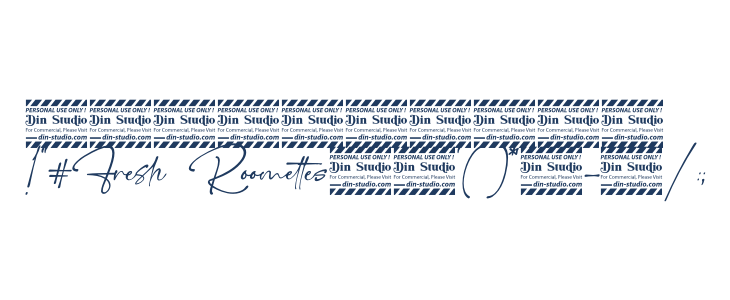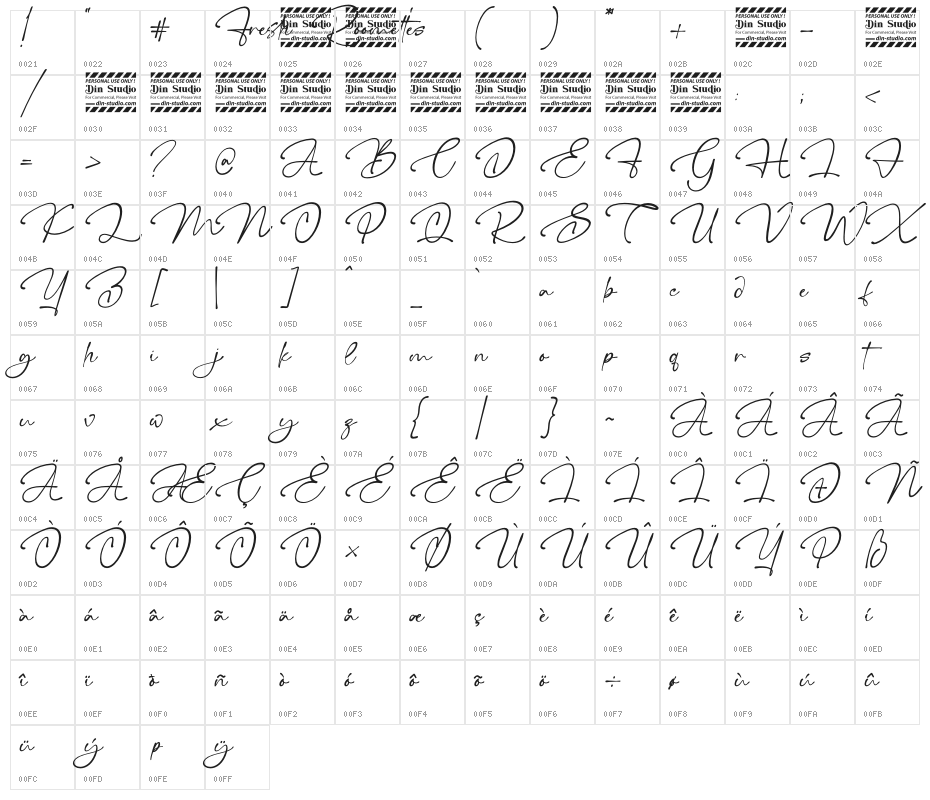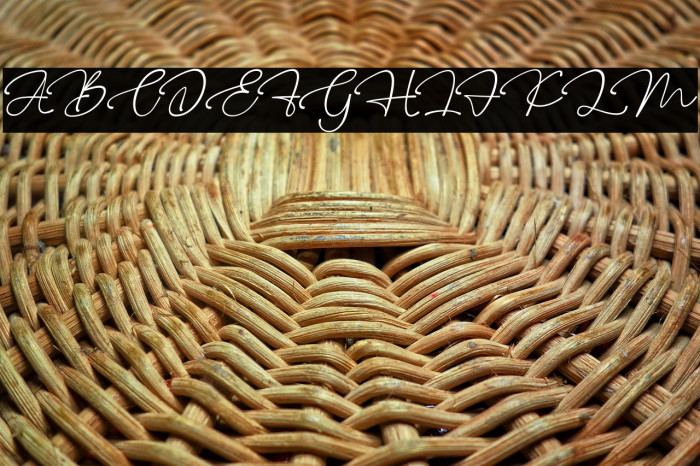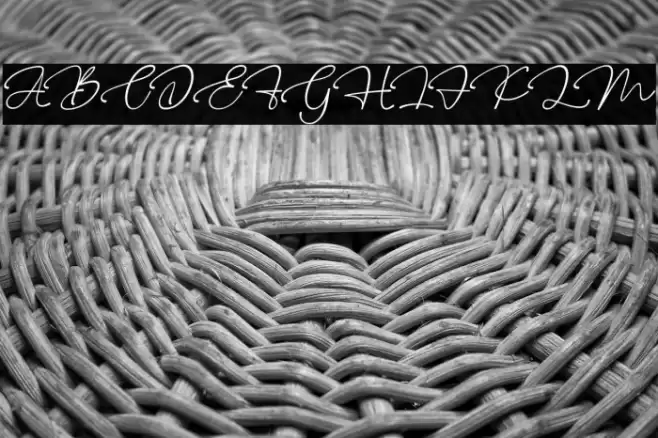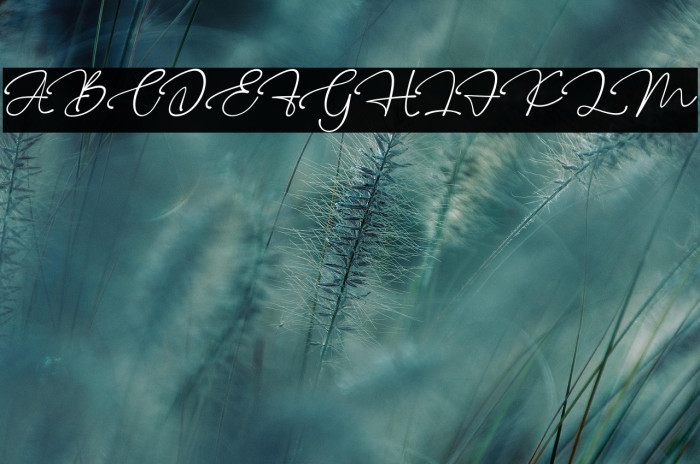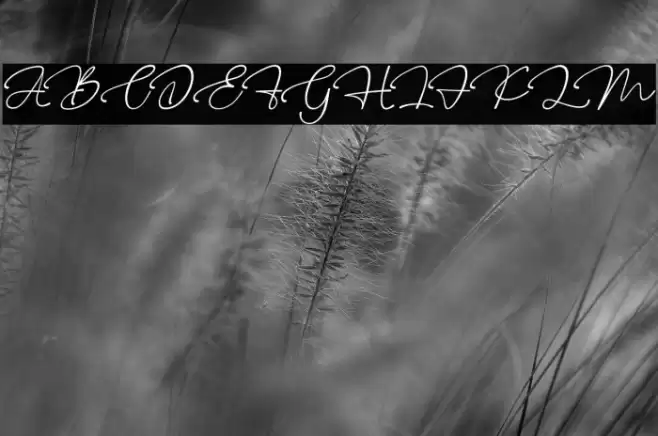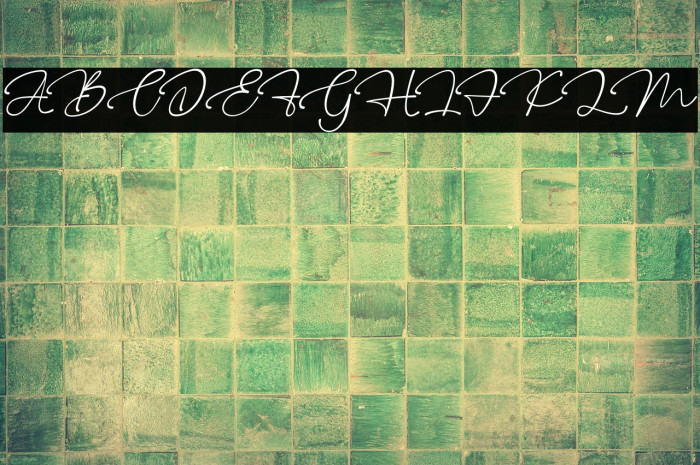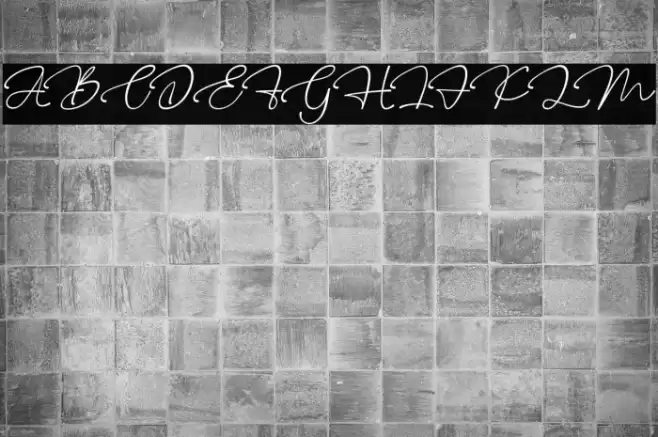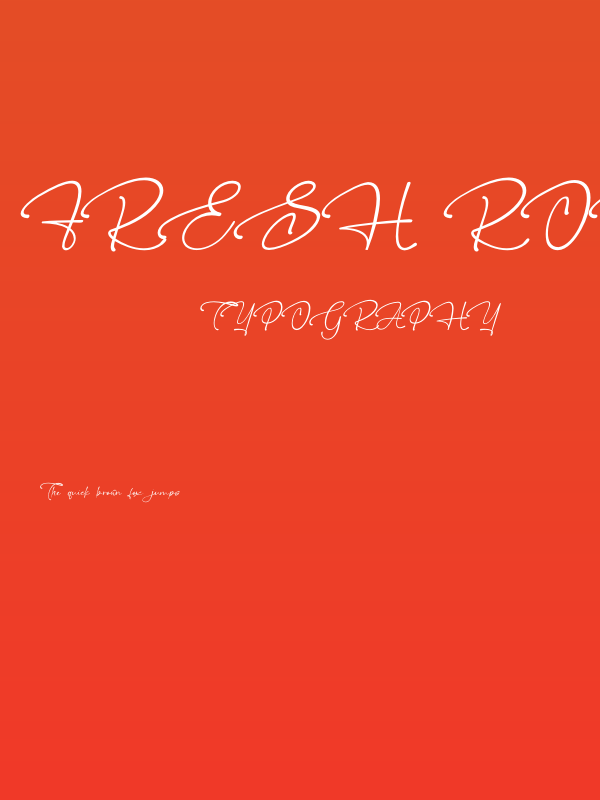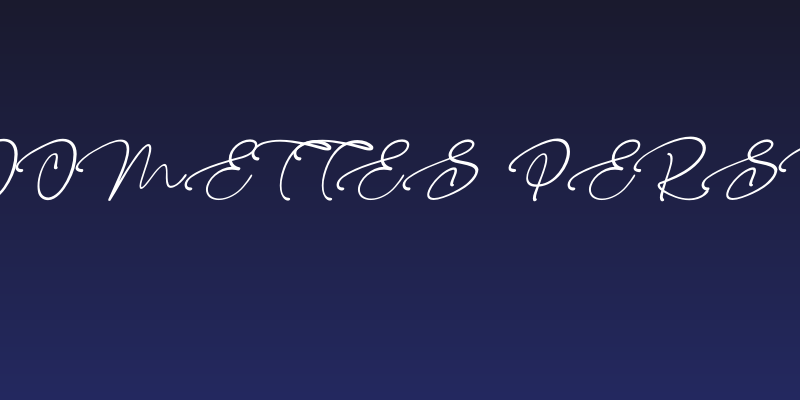
Fresh Roomettes personal use Font
Fresh Roomettes personal use Description
This font features an elegant and flowing script style, characterized by its smooth, connected letters that mimic the fluidity of handwriting. The uppercase letters are slightly more ornate, with subtle flourishes that add a touch of sophistication. The lowercase letters maintain a consistent flow, enhancing readability while preserving the decorative nature of the script. The numbers and special characters are designed to match the overall aesthetic, ensuring a cohesive look across all text elements. This font is perfect for projects that require a personal, artistic touch, such as invitations, greeting cards, or branding materials.